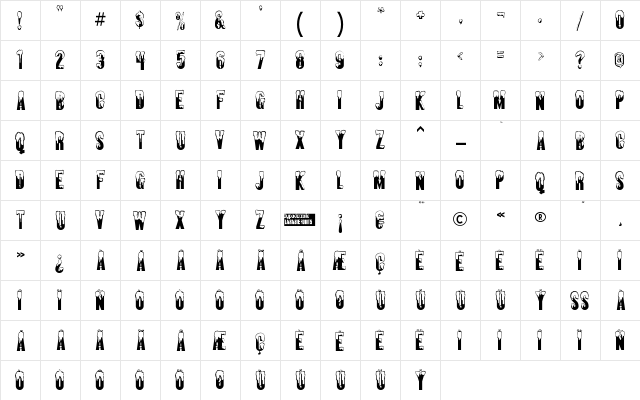
Complete Almonte Snow Regular glyph index. Displaying only characters natively supported by Almonte Snow Regular font.
Almonte Snow is a composed and adaptable typeface that performs quietly and consistently across a wide range of design contexts.
Who designed the Almonte Snow Regular font?